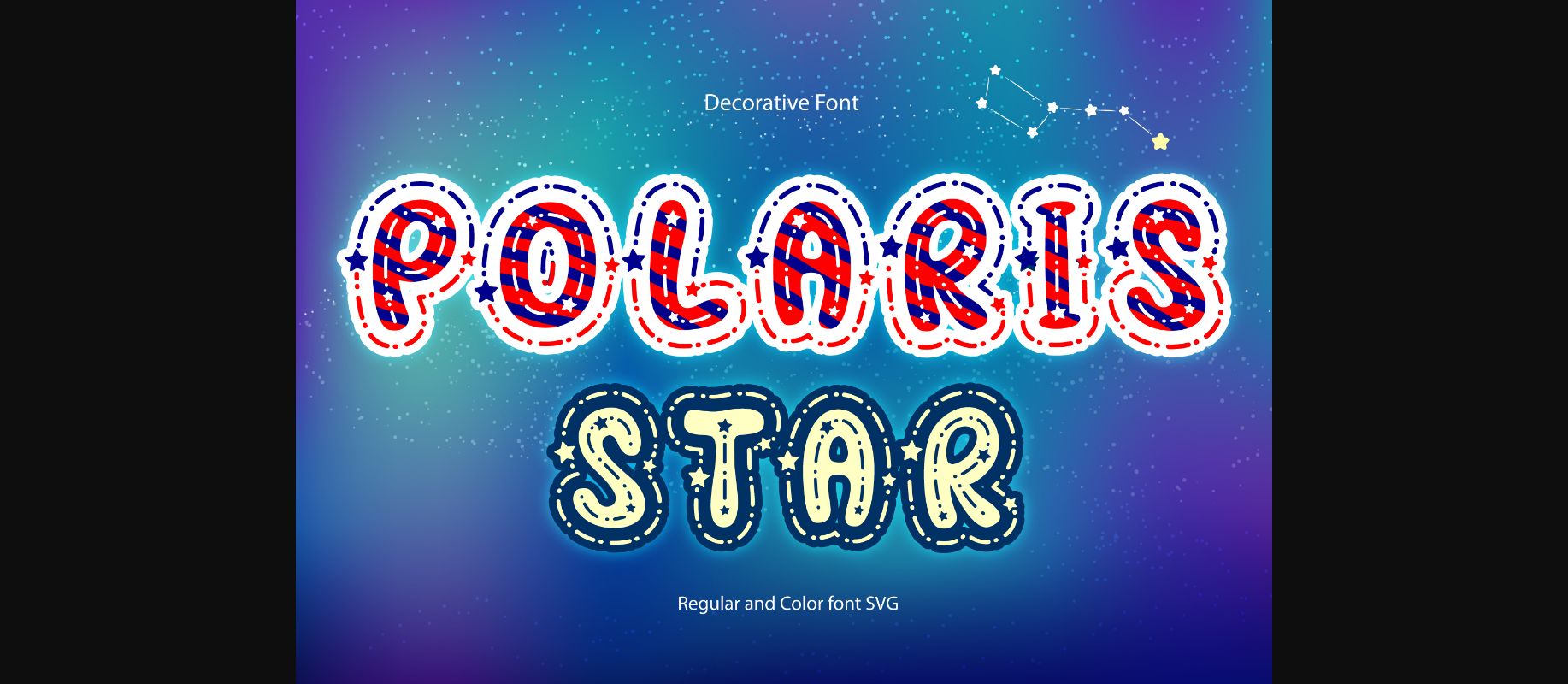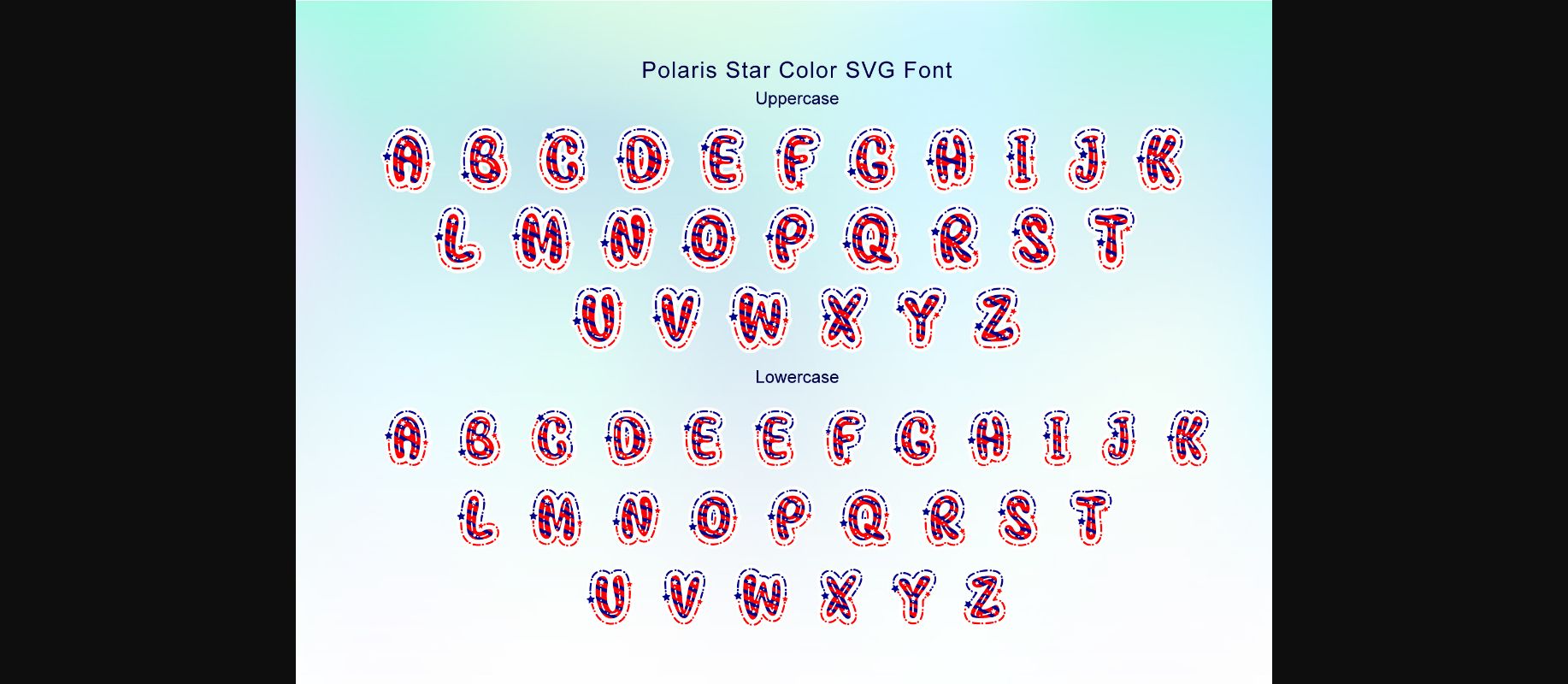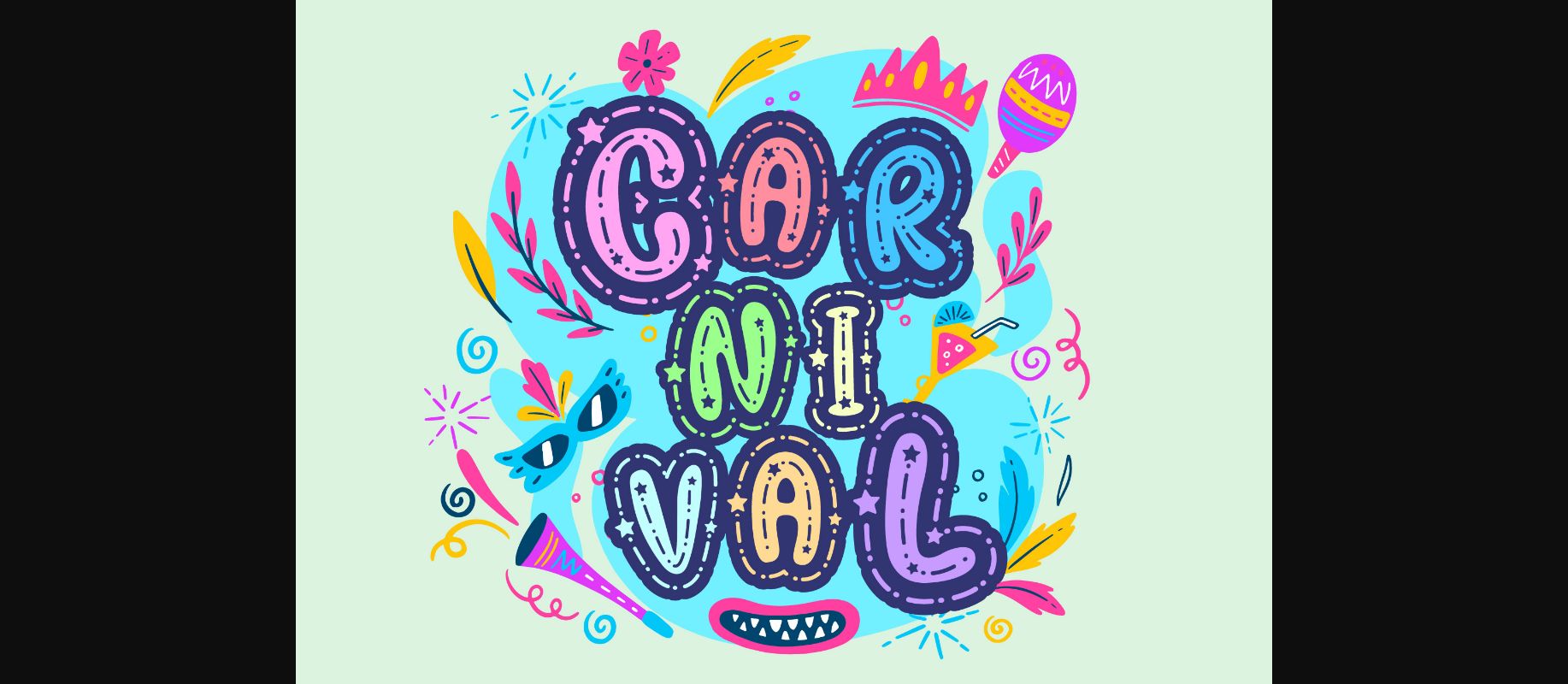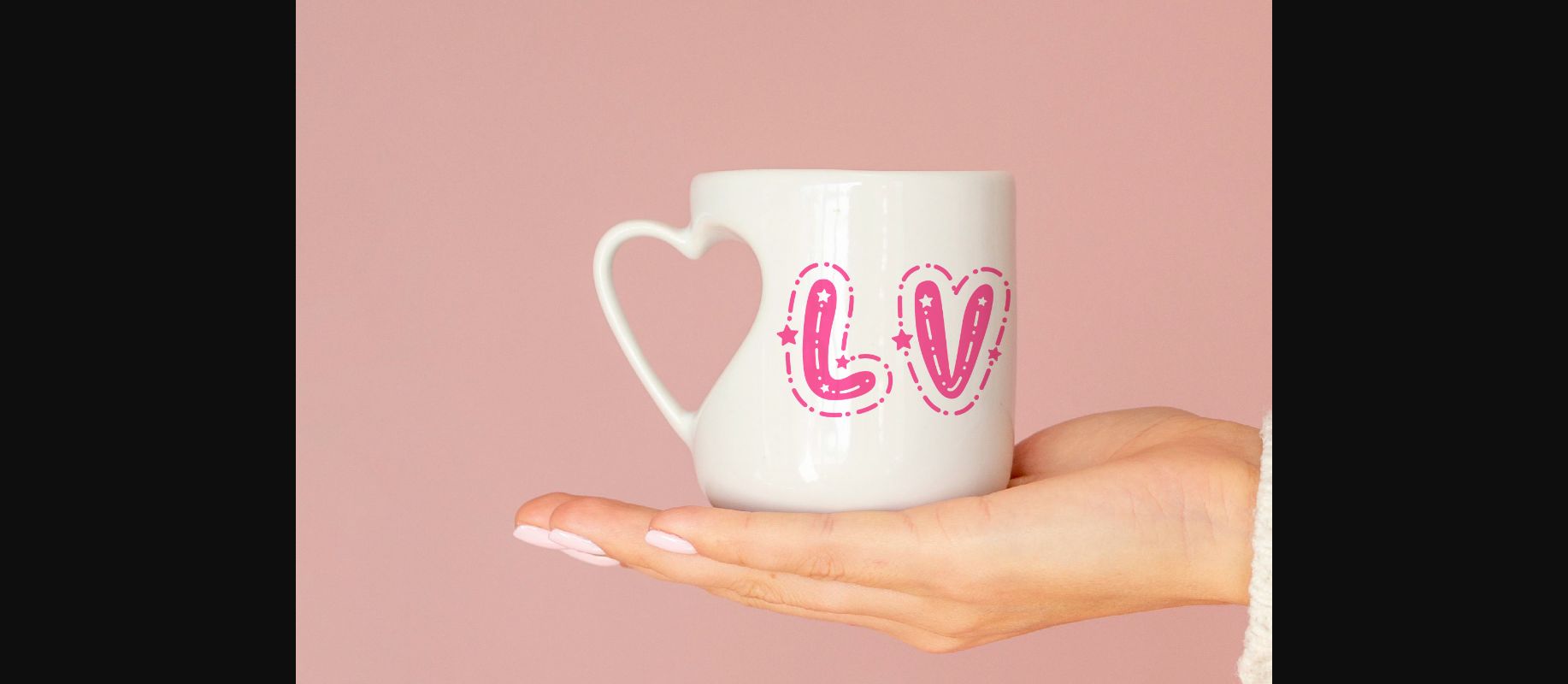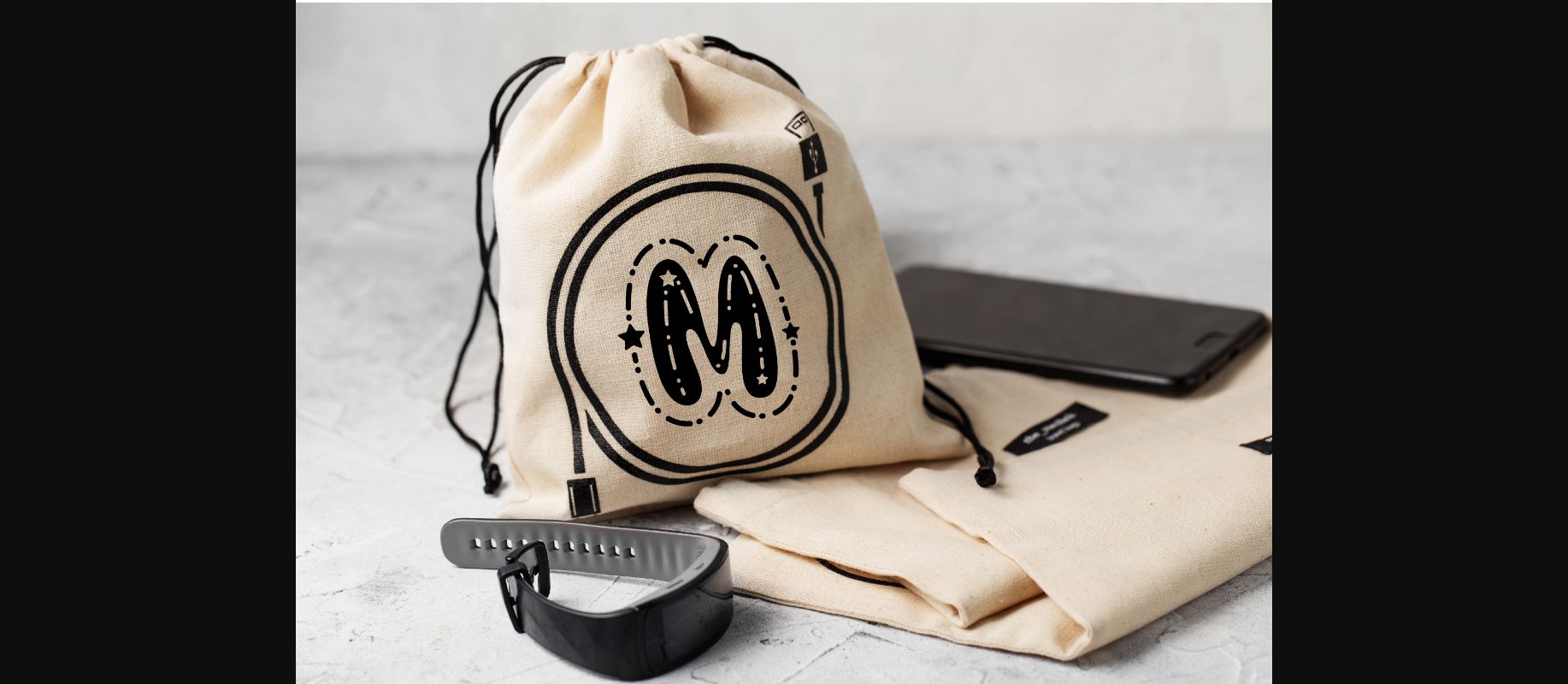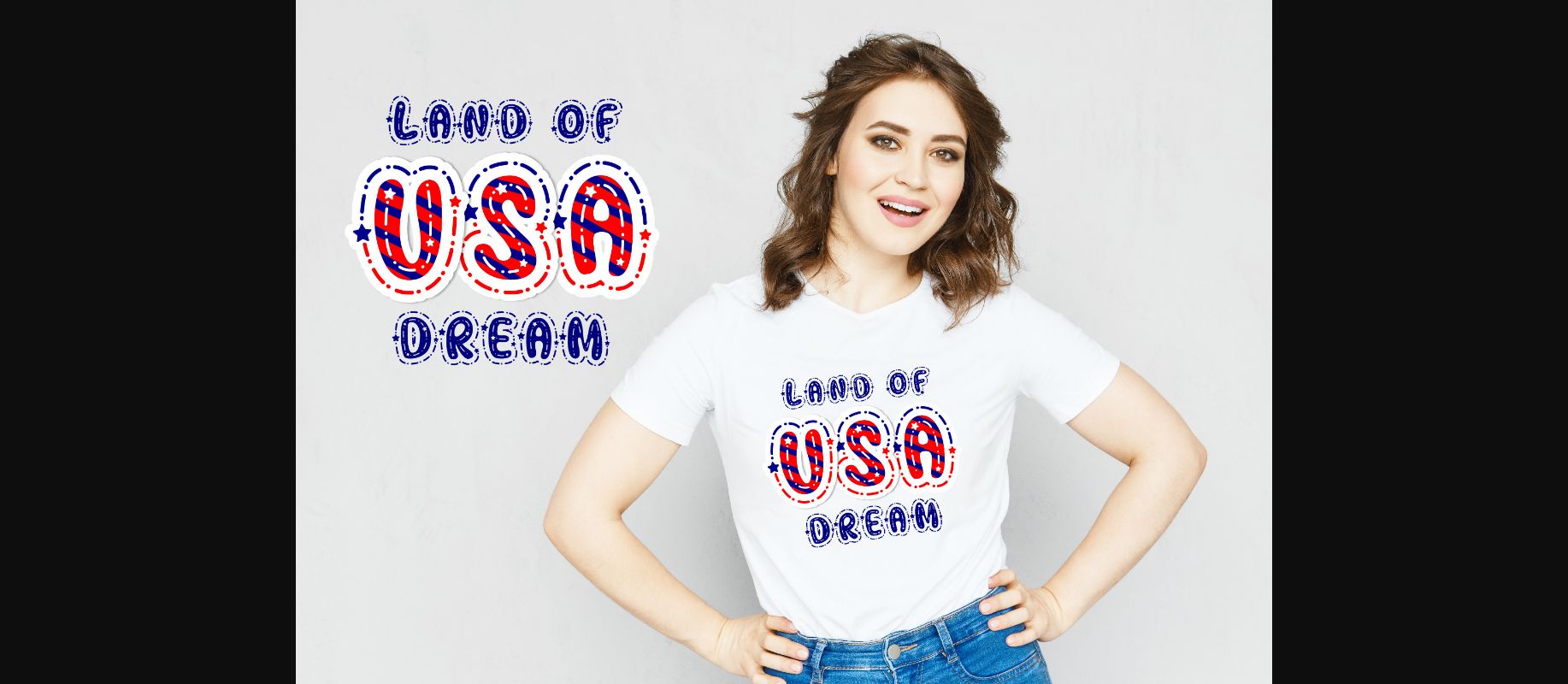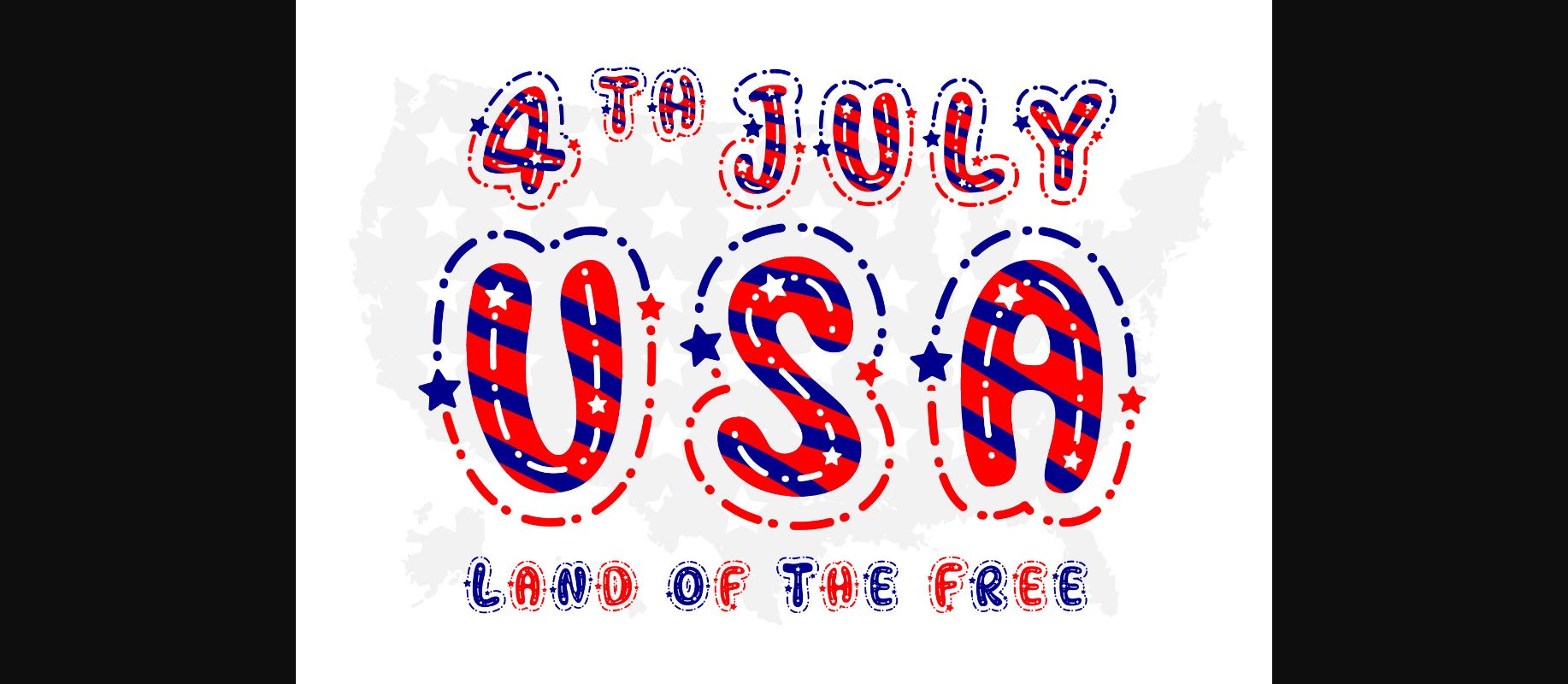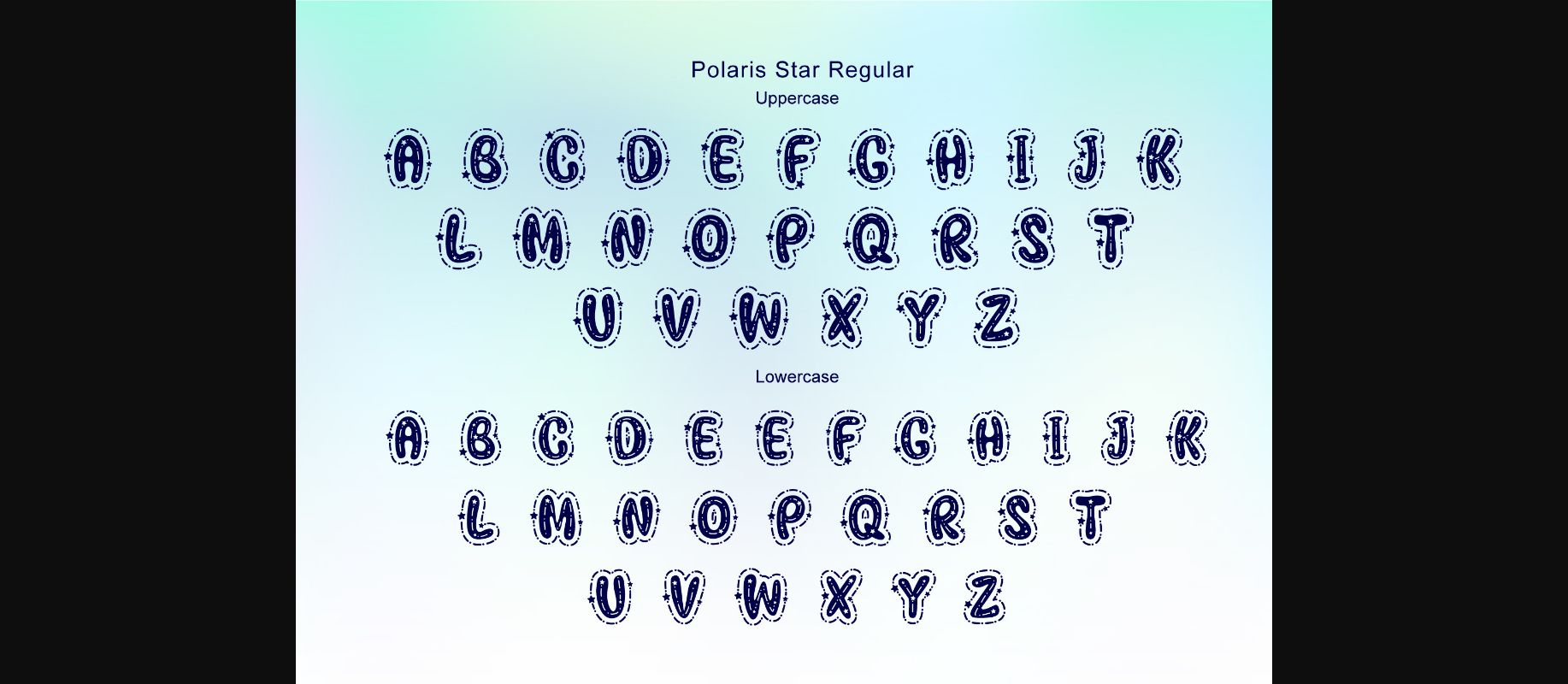
Polaris Star Font
About Polaris Star Font
Polaris Star is a playful and friendly decorative font. You can use it to create unique designs, book covers, birthday cards, greeting cards, and so much more.